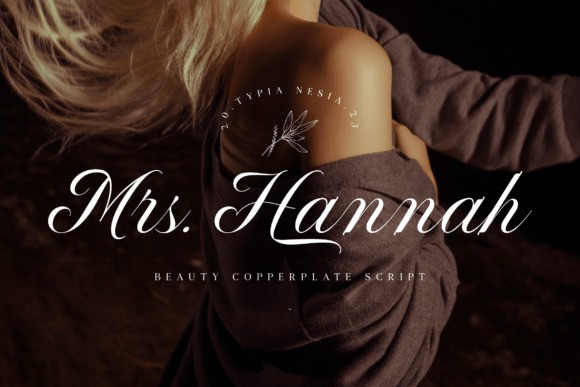
Mrs Hannah Font
Mrs Hannah Font, is a luxurious calligraphy script font that embodies classic romance and timeless beauty. With its elegant and fancy design, this font adds a touch of sophistication to any project. Heartache Script is perfect for applications such as wedding invitations, love letters, branding, logos, and any design that requires an exquisite and lovely touch.